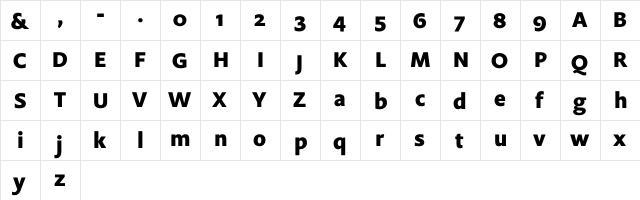
Flex ExtraBold
| Foundry | Paul van der Laan |
| Designer | Paul van der Laan |
Design Context for Flex Typeface
Flex is a composed and adaptable typeface that performs quietly and consistently across a wide range of design contexts. Its bold stroke weight gives it real presence on the page.